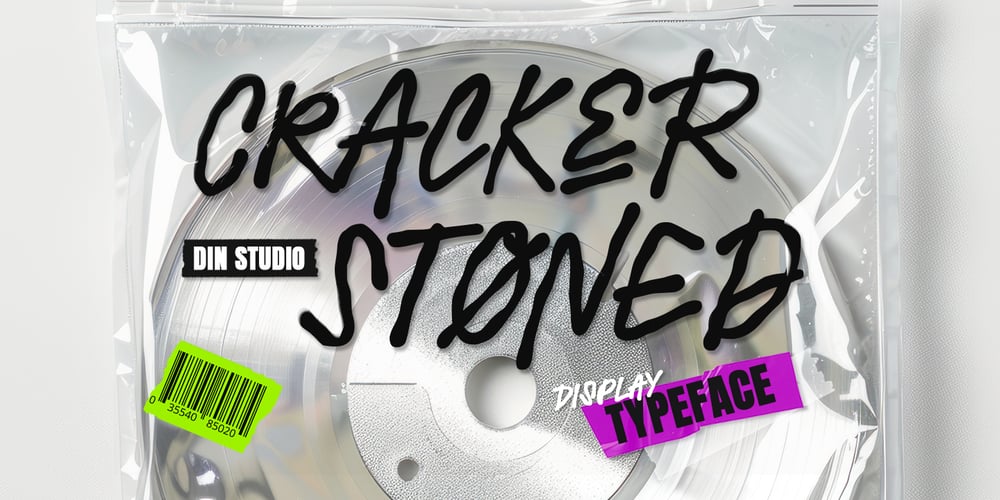
Cracker Stoned
Cracker Stoned font
Cracker Stoned Font Family was designed by Donis Miftahudin and published by Din Studio. Cracker Stoned contains 1 styles and family package options. Cracker Stone is a uniquely designed display font that combines a delicate light weight with a playful touch of wavy line outlines. Each letter is meticulously crafted with consistent proportions, creating a harmonious and balanced appearance while maintaining a sense of creative spontaneity. This distinctive style makes Cracker Stone an excellent choice for projects seeking a blend of modern elegance and quirky charm. Add a fresh, artistic vibe to your designs with this one-of-a-kind typeface. In addition, enjoy the features here. Features: Multilingual Supports PUA Encoded Numerals and Punctuations Cracker Stone fits in logos, posters, branding materials, print media, and many more designs. Find out more ways to use this font by taking a look at the font preview.Thanks for purchasing our fonts. Hopefully, you have a great time using our font. Feel free to contact us anytime for further information or when you have trouble with the font. Thanks a lot and happy designing.